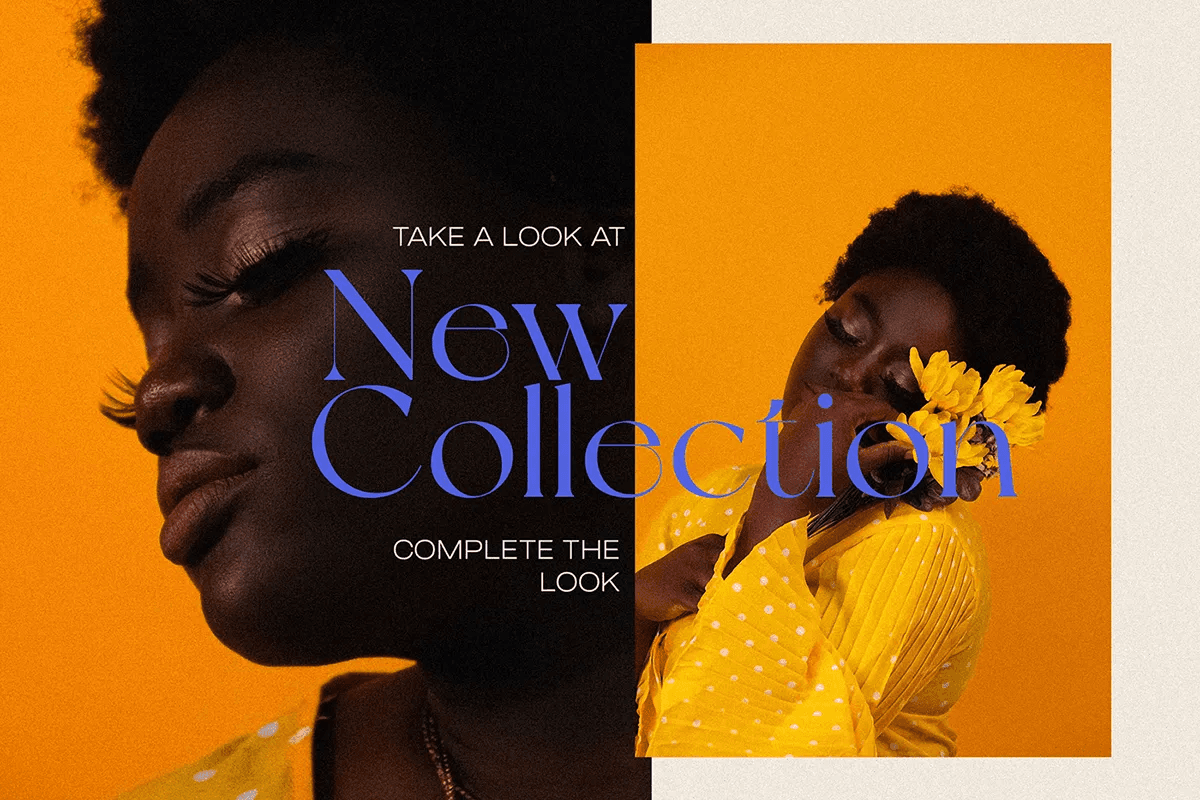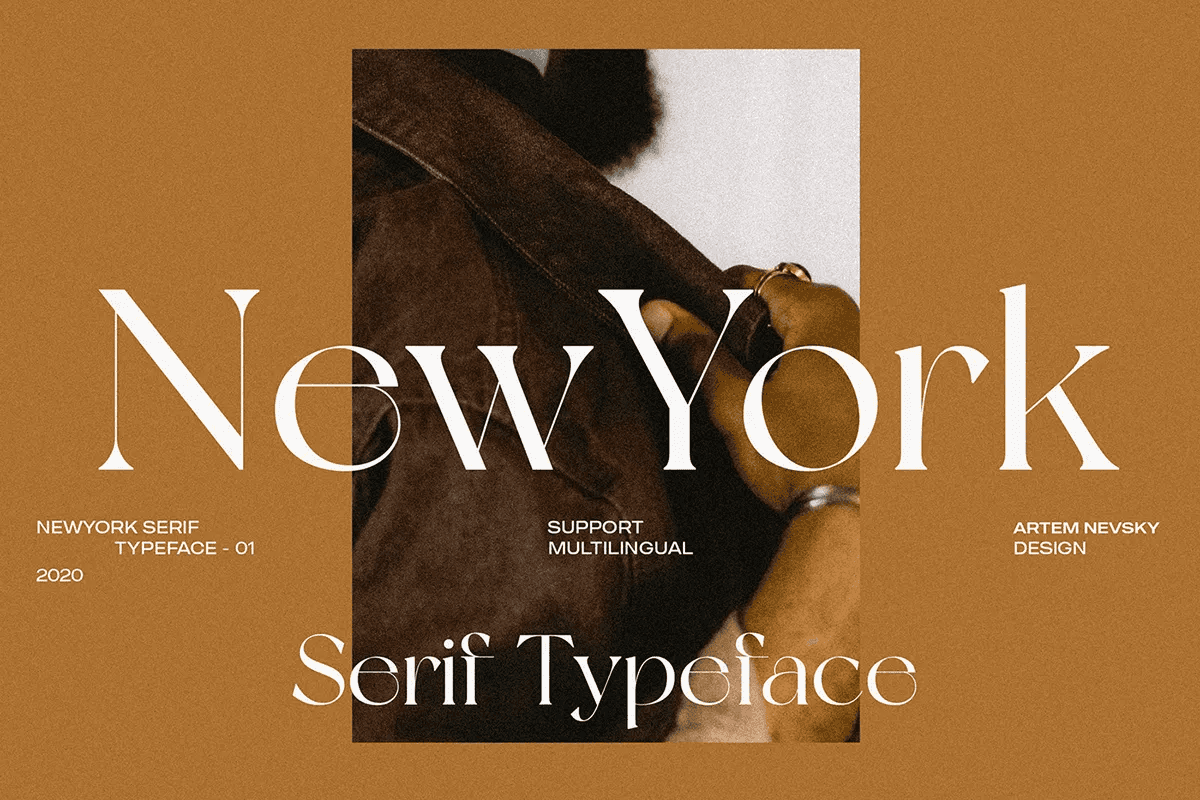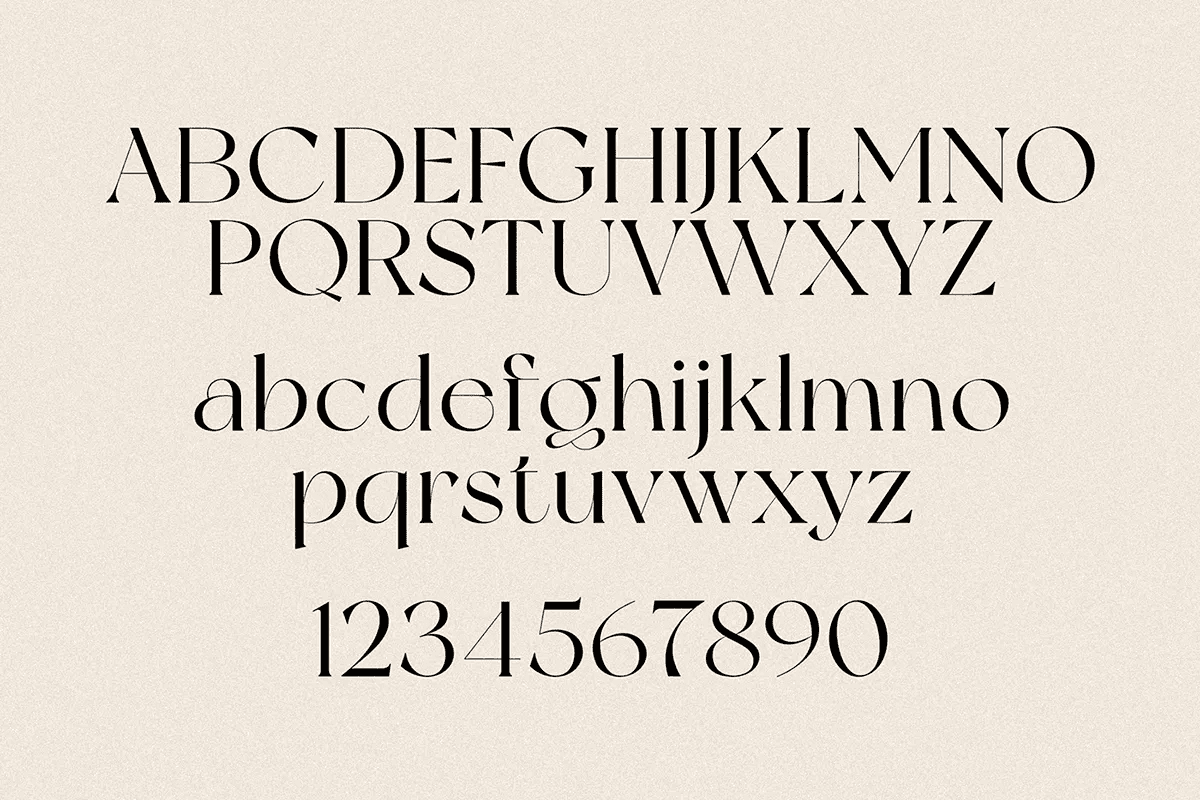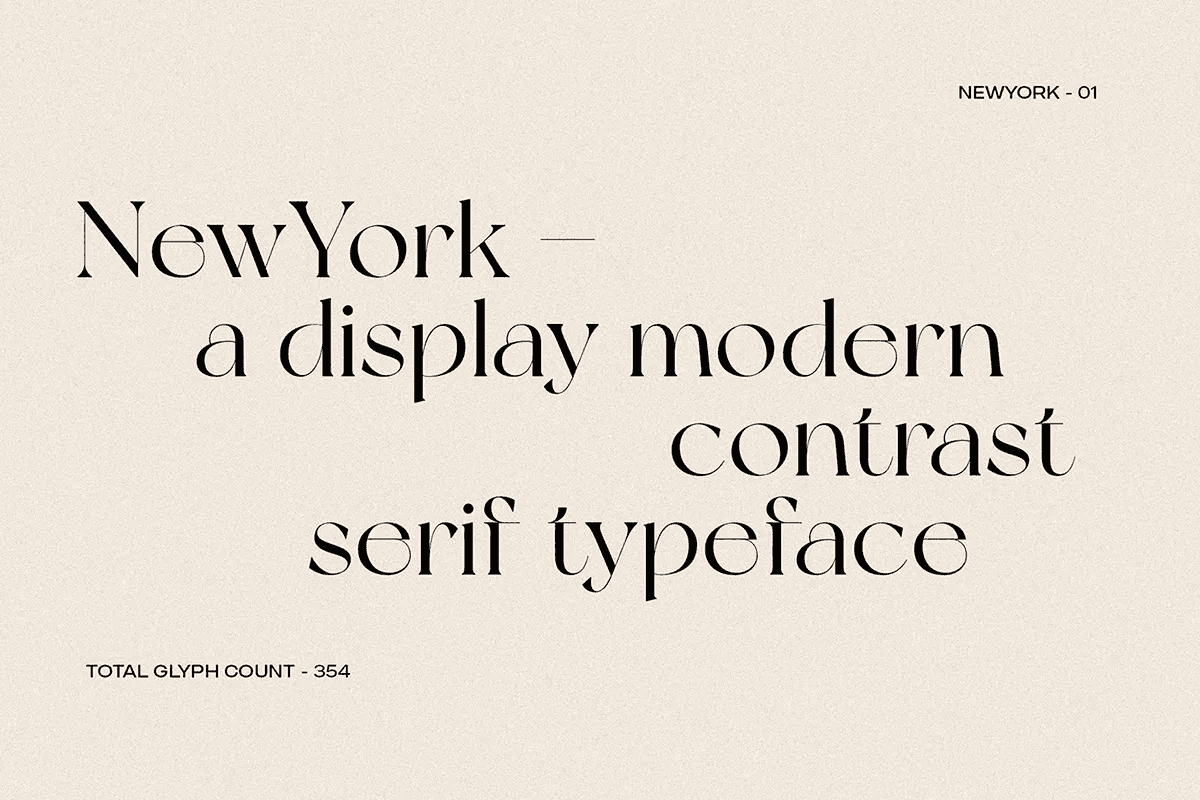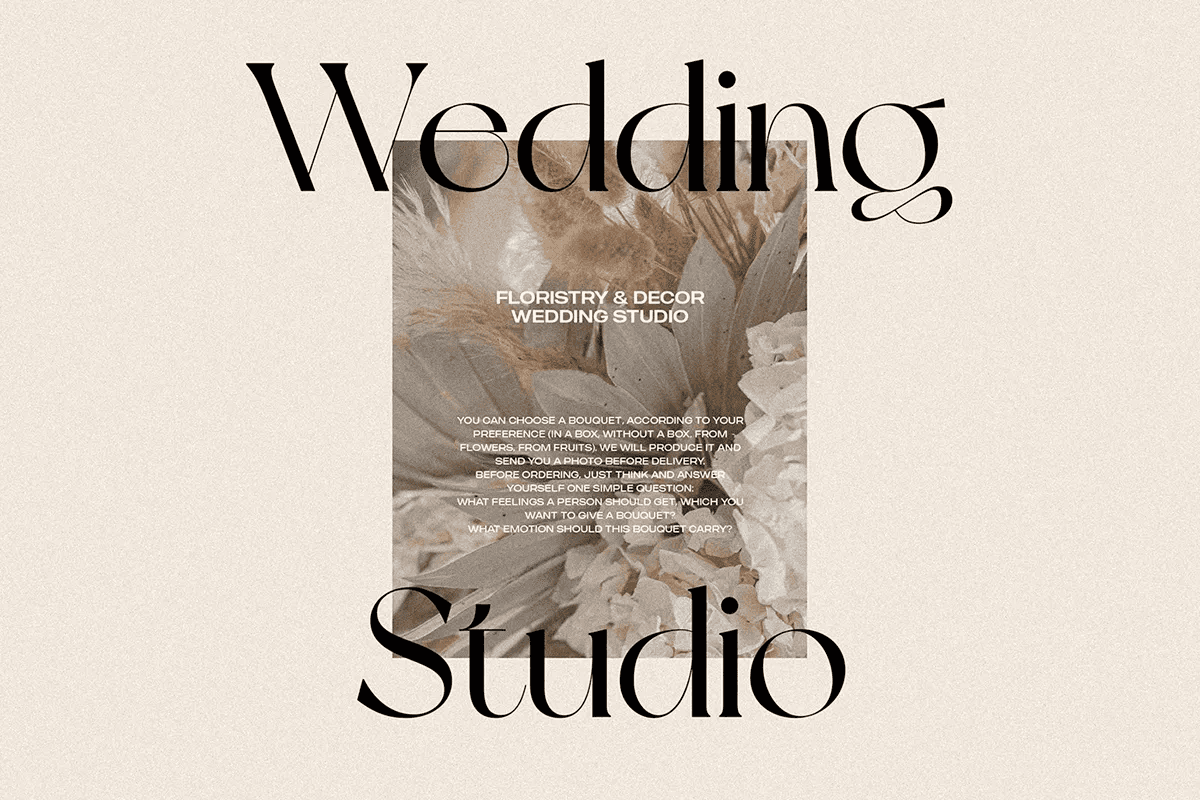
NewYork Free Serif Typeface
NewYork Free Serif Typeface is a modern contrast display serif typeface by Artem Nevsky. The font is best for fashion, magazines, logos, and branding, social media and other artworksThanks to Artem Nevsky for sharing this awesome typeface today! So, if you like this NewYork Free Serif Typeface, make sure to visit their portfolio! Then, you can leave comments and appreciate to let them know how you think about their works. Simply click on the check out more button below to get them.